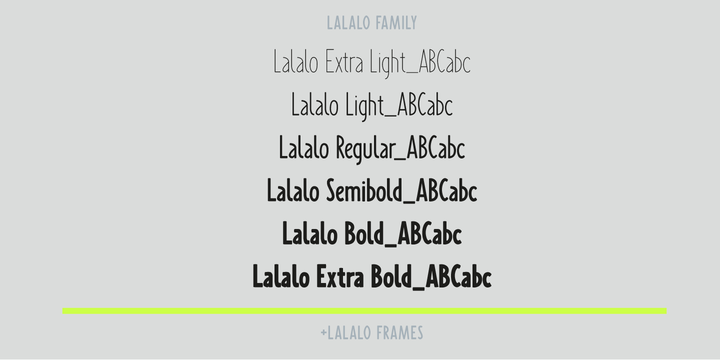
Lalalo is a casual, modern sans-serif font family based on hand-lettering. It’s oval letter shapes provide soft and friendly appearance. Lalalo font is very legible with a warm touch perfectly suited for children books.
Lalalo family consists of 6 weights ( Extra Light, Light, Regular, Semibold, Bold, ExtraBold).
You can use it with normal fill or outlined. You can mix various colors and stroke widths to gain interesting results. There is also a set of nice frames available.